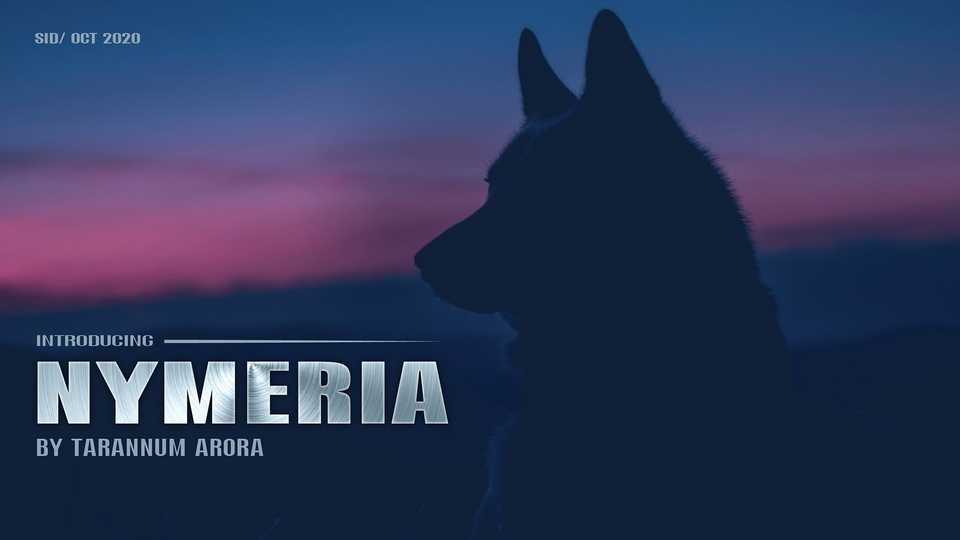
Download Nymeria typeface, a stand out display font family with a bold, husky, strong, loyal look. Nymeria is available in number of styles, characterized to serve versatility in both print and web medias.
Designer: Tarannum Arora